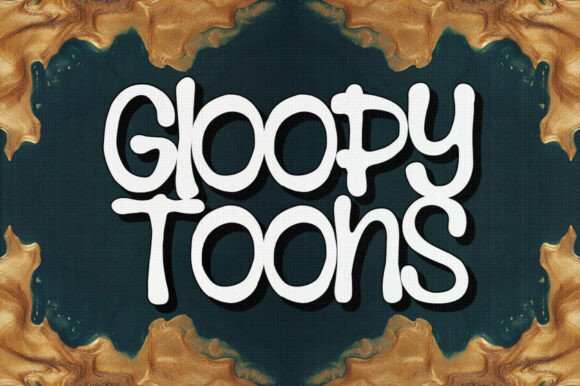
Gloopy Toons Font: The Ultimate Guide to Adding a Cool, Refreshing Twist to Your Designs
Are you looking for a unique font that can add a splash of creativity to your designs? Look no further than the Gloopy Toons Font! This drip water style font is perfect for summer themes, beverage branding, splashy designs, pool party invites, or anything that needs a cool, refreshing twist. In this article, we’ll dive into the world of Gloopy Toons Font and explore its features, benefits, and uses.
What is Gloopy Toons Font?
Gloopy Toons Font is a unique and creative font that features fluid, organic shapes that give your text a dynamic and eye-catching appearance. Every letter looks like it’s melting or freshly dipped in liquid, making it perfect for designs that need a wet, glossy aesthetic. The font’s drip water style is reminiscent of summer fun, cool drinks, and refreshing splashes, making it ideal for a wide range of design projects.
Features of Gloopy Toons Font
- Unique and Creative Design: Gloopy Toons Font features a one-of-a-kind design that is sure to turn heads. Its fluid, organic shapes give your text a dynamic and eye-catching appearance.
- Drip Water Style: The font’s drip water style is perfect for summer themes, beverage branding, and splashy designs.
- Perfect for Digital Artwork: Gloopy Toons Font is ideal for digital artwork, posters, logos, and other design projects that need a cool, refreshing twist.
Benefits of Using Gloopy Toons Font
Using Gloopy Toons Font can bring a range of benefits to your designs. Here are some of the advantages of using this unique font:
- Adds a Cool, Refreshing Twist: Gloopy Toons Font adds a cool, refreshing twist to your designs, making them stand out from the crowd.
- Perfect for Summer Themes: The font’s summer-inspired design makes it perfect for summer themes, pool party invites, and other seasonal designs.
- Increases Engagement: The font’s dynamic and eye-catching appearance can increase engagement and grab the attention of your audience.
- Versatile: Gloopy Toons Font can be used for a wide range of design projects, from posters and logos to digital artwork and more.
Uses of Gloopy Toons Font
Gloopy Toons Font can be used for a wide range of design projects. Here are some ideas to get you started:
- Summer Themes: Use Gloopy Toons Font to create summer-themed designs, such as posters, flyers, and social media graphics.
- Beverage Branding: The font’s drip water style makes it perfect for beverage branding, such as logos and packaging for cool drinks.
- Splashy Designs: Gloopy Toons Font is ideal for splashy designs, such as pool party invites, beach-themed posters, and more.
- Digital Artwork: Use the font to create dynamic and eye-catching digital artwork, such as illustrations, animations, and more.
Tips for Using Gloopy Toons Font
Here are some tips for using Gloopy Toons Font effectively:
- Use it Sparingly: Use Gloopy Toons Font sparingly to avoid overwhelming your design. Use it for headings or titles to add a pop of creativity.
- Experiment with Colors: Experiment with different colors to find the perfect combination that complements your design.
- Pair it with Other Fonts: Pair Gloopy Toons Font with other fonts to create a unique and creative design.
Gloopy Toons Font is a unique and creative font that can add a cool, refreshing twist to your designs. Its drip water style and fluid, organic shapes make it perfect for summer themes, beverage branding, splashy designs, and more. With its ease of use and versatility, Gloopy Toons Font is a must-have for any designer looking to add some chill to their visuals.
- What is Gloopy Toons Font?: Gloopy Toons Font is a unique and creative font that features fluid, organic shapes that give your text a dynamic and eye-catching appearance.